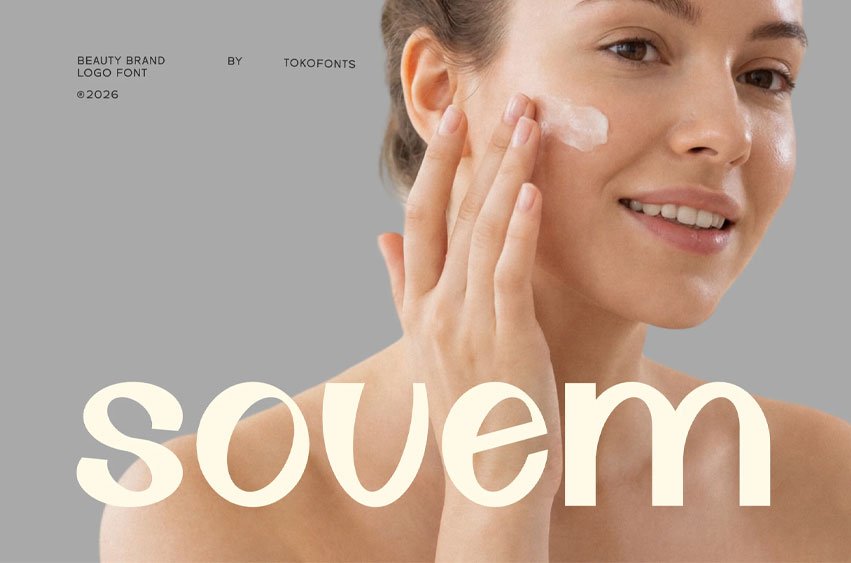
Sovem Font is a modern and elegant display typeface crafted to deliver a clean and minimal aesthetic for logo and branding design. With its smooth curves and balanced structure, this font takes inspiration from timeless styles like helvetica, montserrat, and futura while introducing a soft and contemporary personality. It is perfectly suited for beauty brands, fashion visuals, and corporate identities that require a refined and sophisticated look.
Designed for versatility, Sovem font adapts beautifully across a wide range of creative applications, from professional corporate layouts to playful kids concepts. Its clean and minimal form ensures excellent readability while maintaining a strong display presence, making it ideal for logos, packaging, and modern branding systems. Sovem stands among modern fonts that blend elegance, clarity, and simplicity into a powerful visual identity.